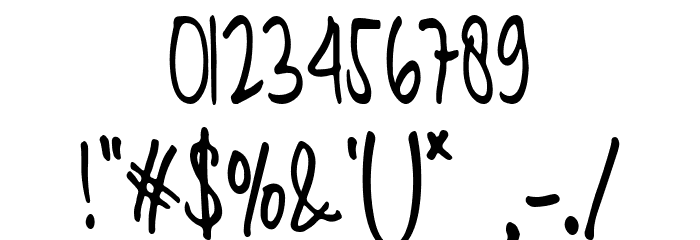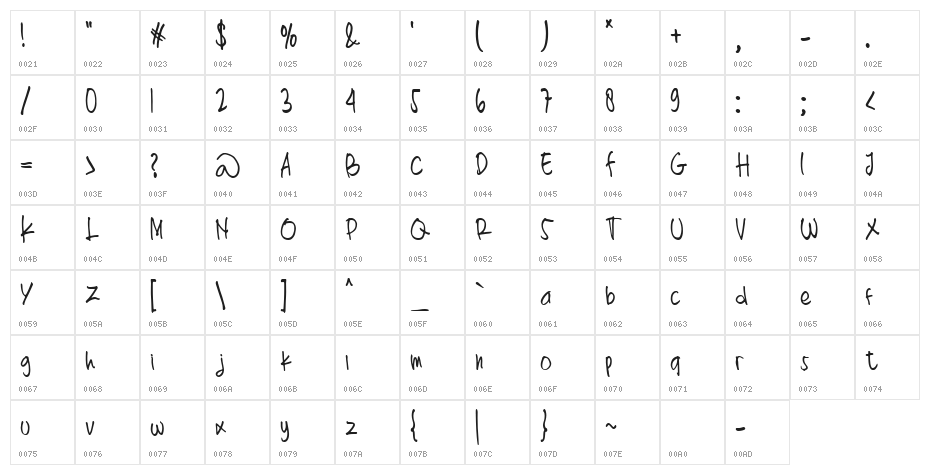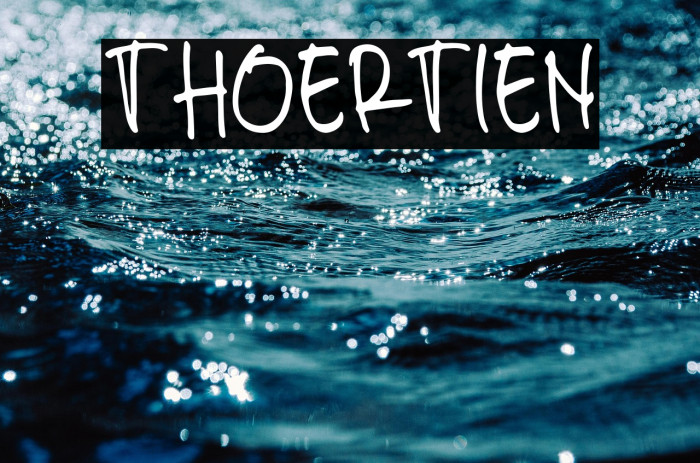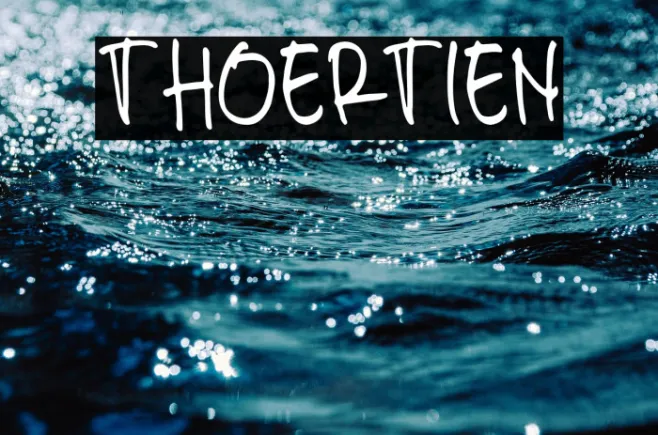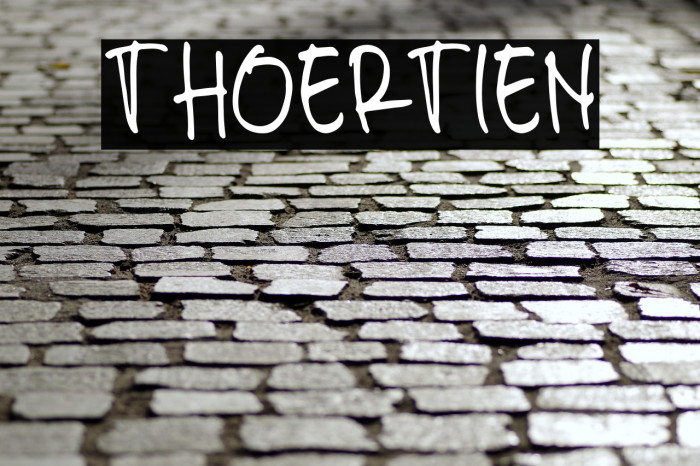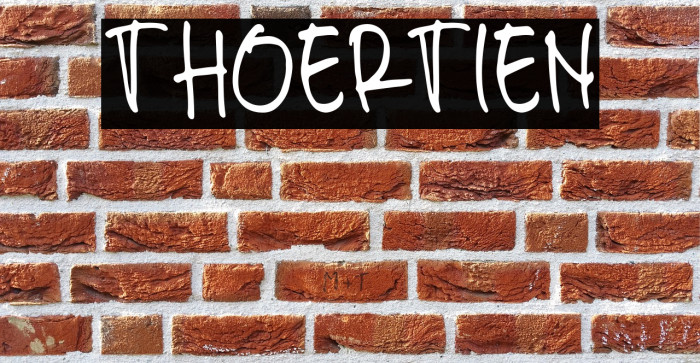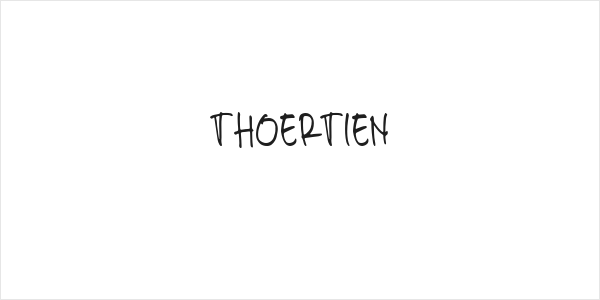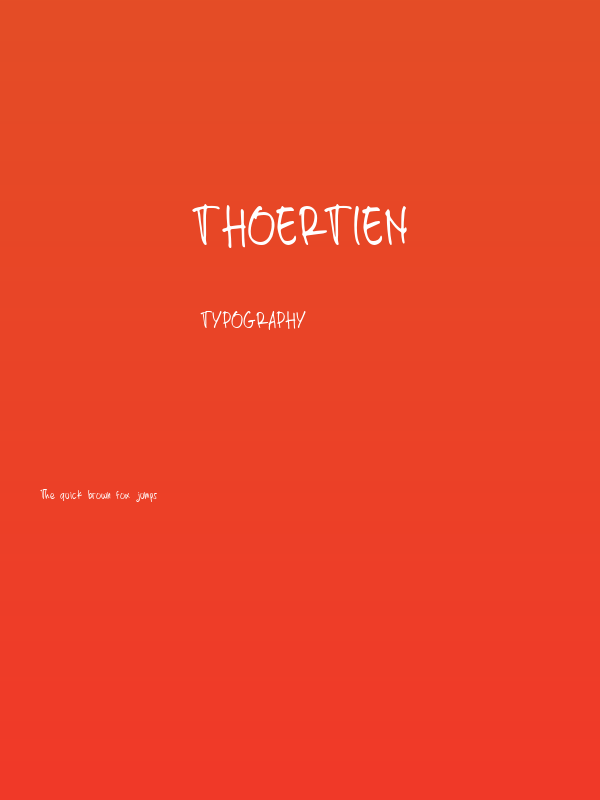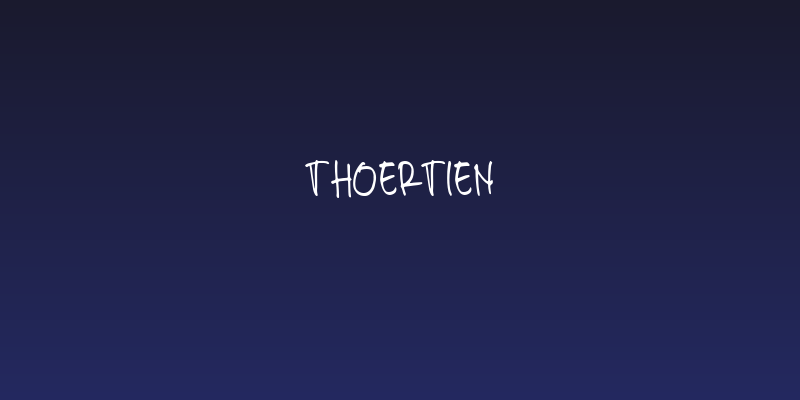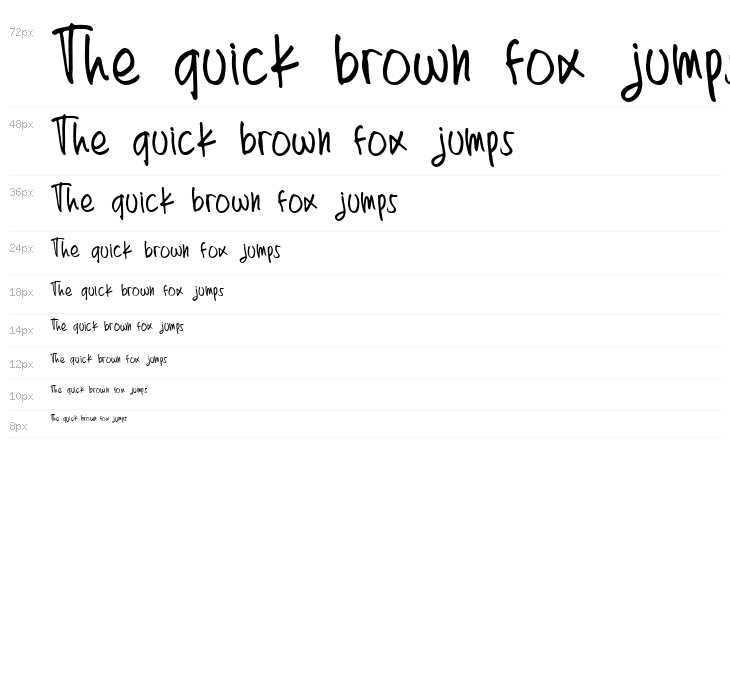
THOERTIEN Font
THOERTIEN Description
This font exudes a playful and casual vibe, characterized by its handwritten style. The letters are slightly irregular, giving it a personal and informal touch. The strokes are consistent in width, providing a uniform appearance across all characters. The uppercase and lowercase letters maintain a cohesive look, while the numerals and special characters blend seamlessly with the overall style. This font is ideal for projects that require a friendly and approachable aesthetic, making it suitable for invitations, greeting cards, and informal branding.
| Use Case | Headlines, Informal text, Branding |
| Proposed Projects | Ideal for invitations, greeting cards, children's books, and informal branding. |